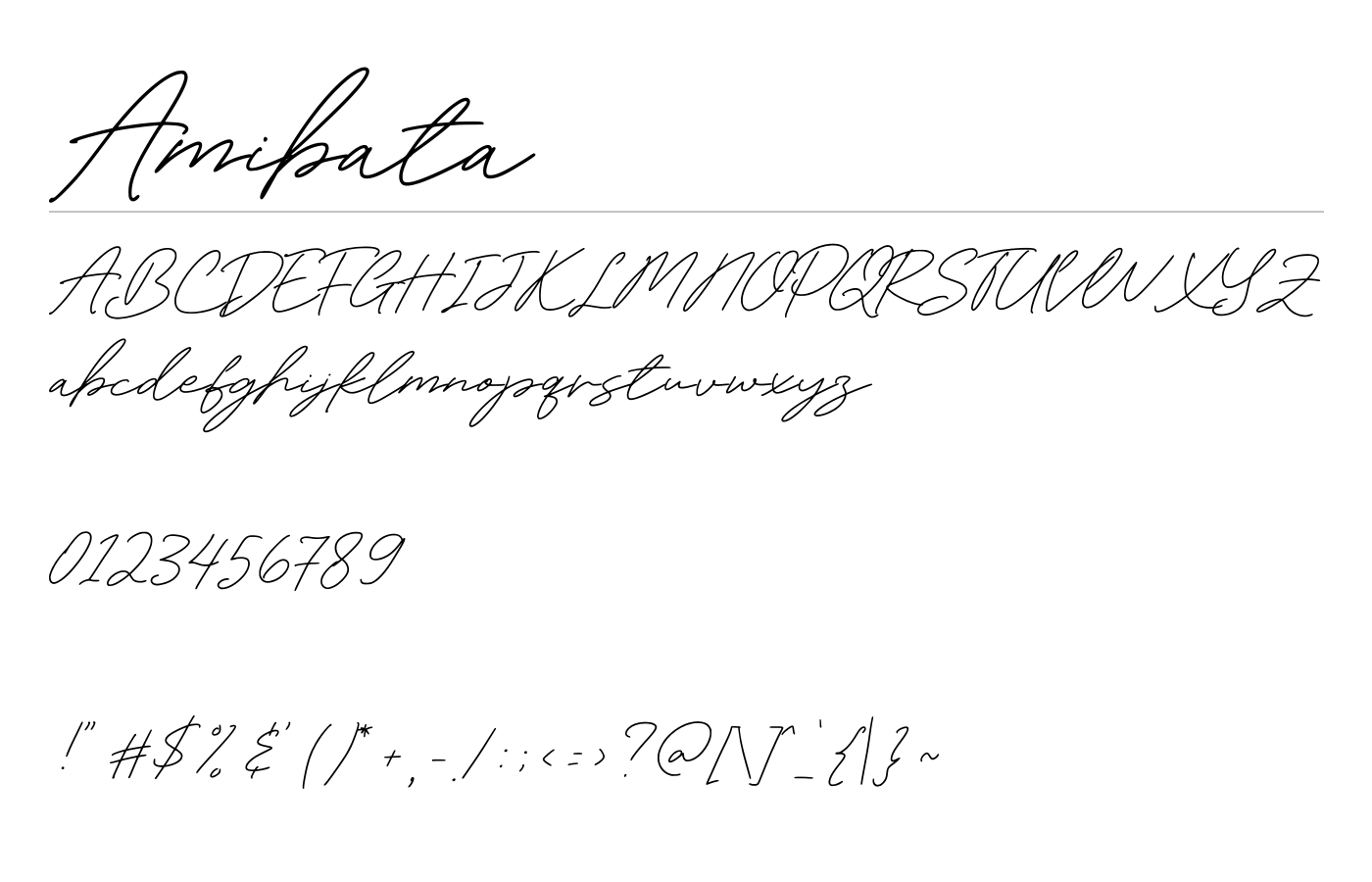
Amibata is a delicate, elegant script font featuring slender, fluid strokes that mimic natural handwriting with a refined, airy feel. Its graceful letterforms and consistent weight make it ideal for sophisticated branding, wedding invitations, and stylish editorial designs, lending a personal yet polished touch. This font works best in contexts where a light, artistic expression is desired, bringing a sense of charm and approachability.
Amibata Font
About Amibata Font
| Font family | Amibata Font |
| Designer | Muhammad Husni Haikal |